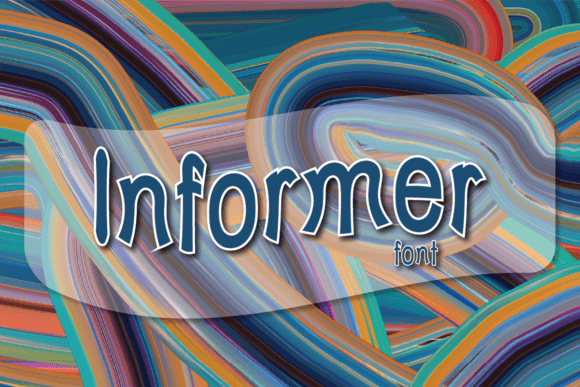
Welcome to the world of Informer Font Family: Your Gateway to Colorful and Joyous Expressions!
Picture this: Your next project explodes with vibrant colors, playful personalities, and eye-catching charm. Informer Font Family is your passport to this creative paradise, intertwining imagination and expression flawlessly.
Let Informer's kaleidoscope of colors invigorate your designs and enthrall your audience. Whether you're crafting cheerful greeting cards, eye-popping advertisements, or captivating book covers, Informer Font Family paints a palette of visual delight.
Dive into a kaleidoscope of possibilities with Informer Font Family. Whether your creative canvas is a heartfelt birthday invitation or an unforgettable social media post, Informer adds a touch of magic to every endeavor. Its versatile nature makes it a perfect companion for logos, brand identities, and any design seeking a jolt of vibrancy.
Unlock your creative superpowers and effortlessly craft stunning designs that speak volumes. Informer Font Family is not just a collection of letters; it's a gateway to a realm where creativity reigns supreme. Let your imagination run wild as you harness Informer's colorful prowess to leave an indelible mark on your audience.